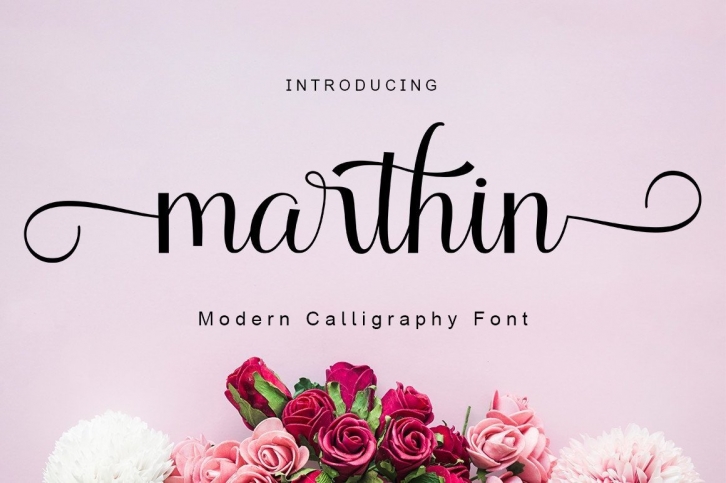
Martin – a fresh & modern new calligraphy style, decorative characters, and a dancing baseline! So beautiful on invitations such as greeting cards, branding materials, business cards, quotes, posters, and other design concepts!